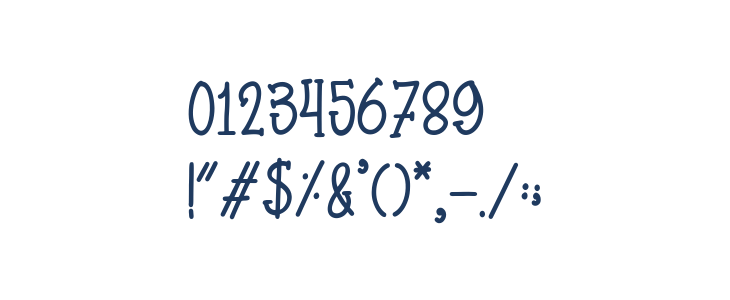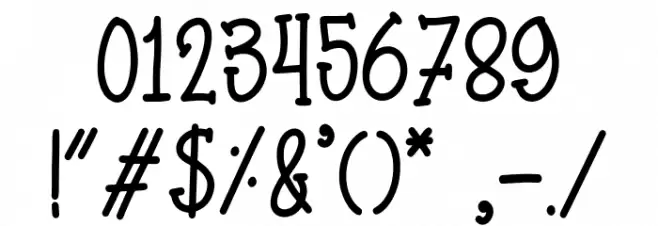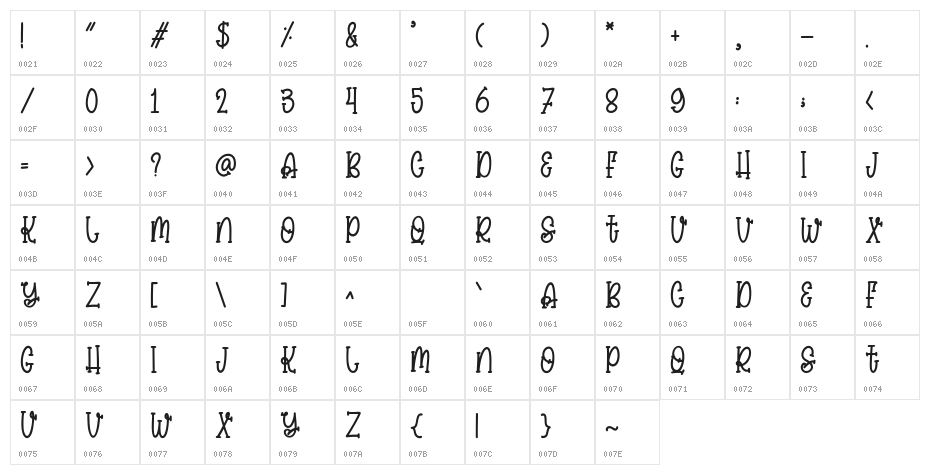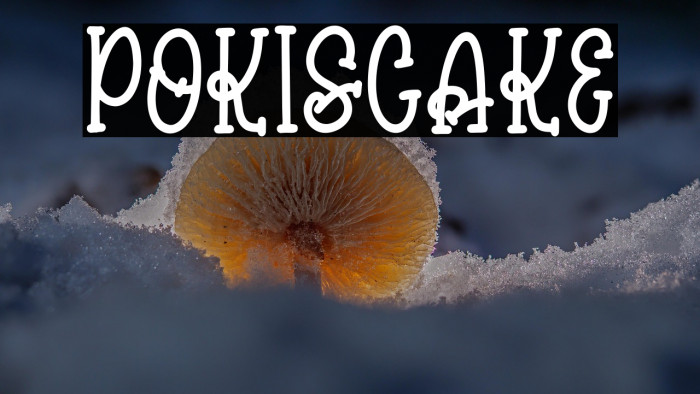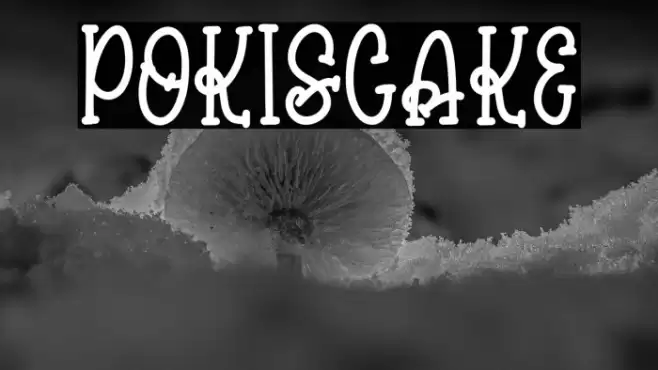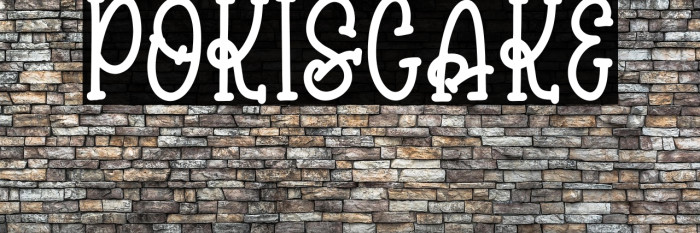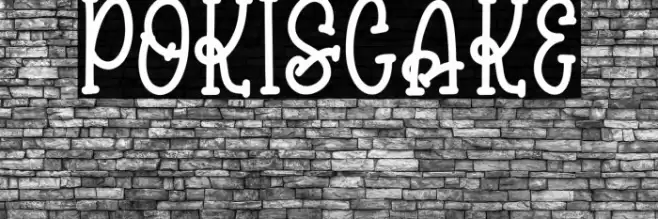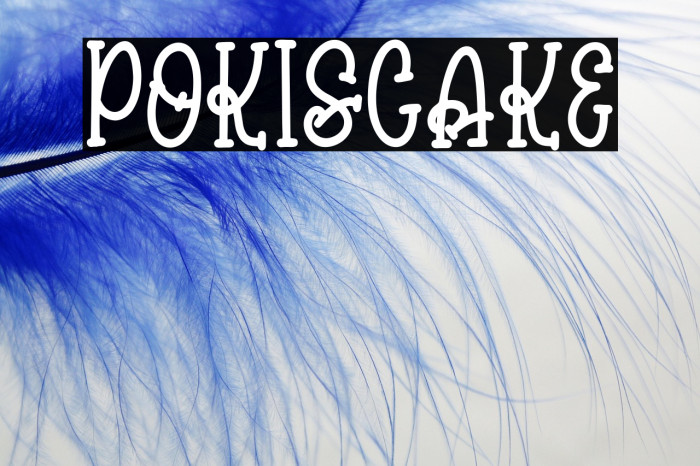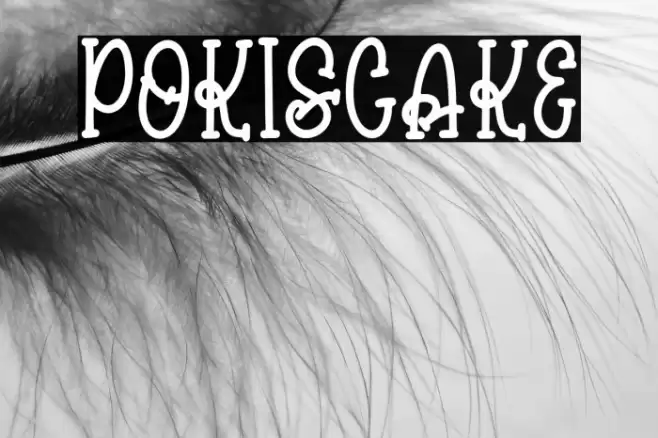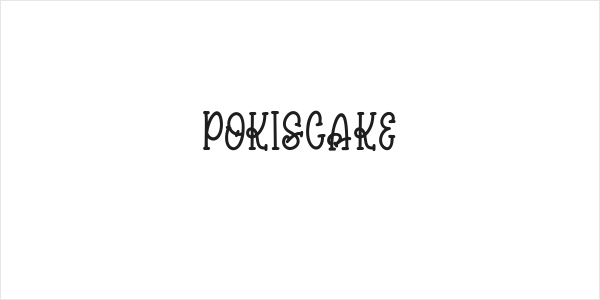
pokiscake Font
pokiscake Description
This playful and whimsical font features a unique blend of bold, rounded characters with a hand-drawn appearance. The letters are characterized by their exaggerated curves and loops, giving them a lively and energetic feel. The uppercase and lowercase letters maintain a consistent style, with a slight variation in size and shape that adds to the font's charm. The numbers and special characters are equally expressive, making this font suitable for a variety of creative projects. Its distinct style is perfect for capturing attention and conveying a sense of fun and creativity.